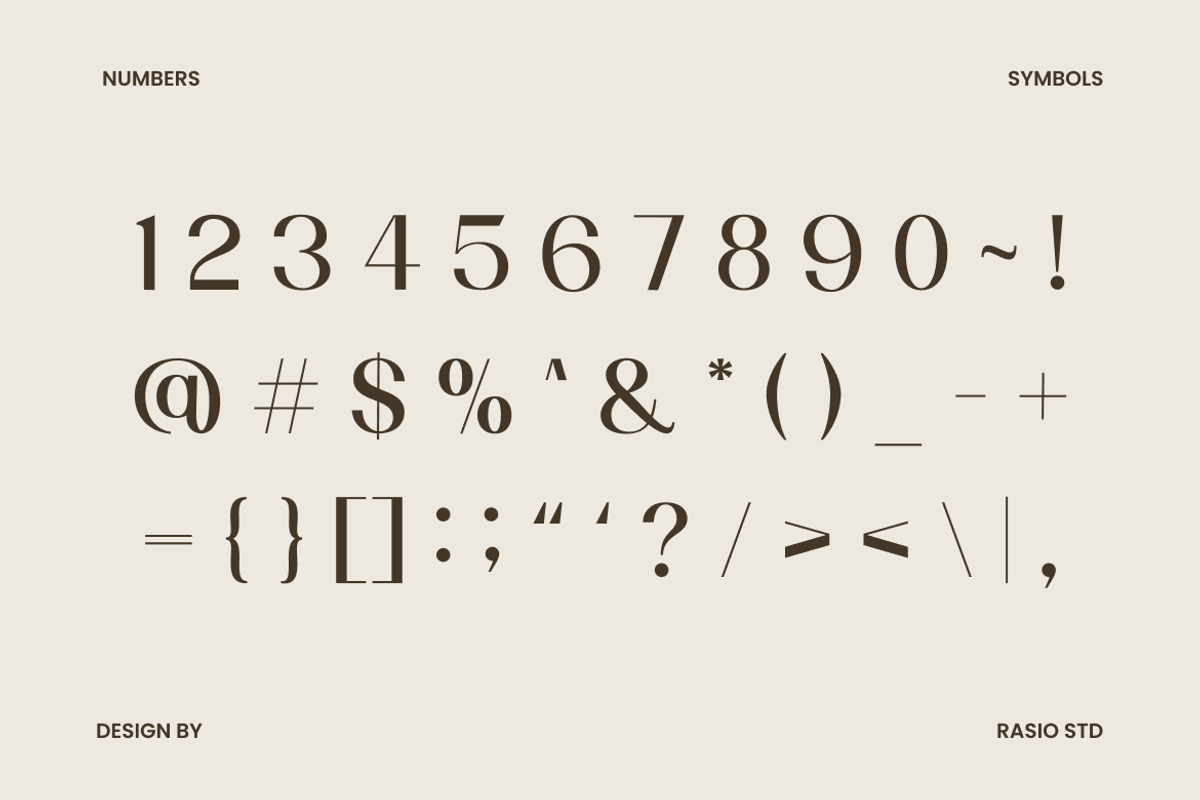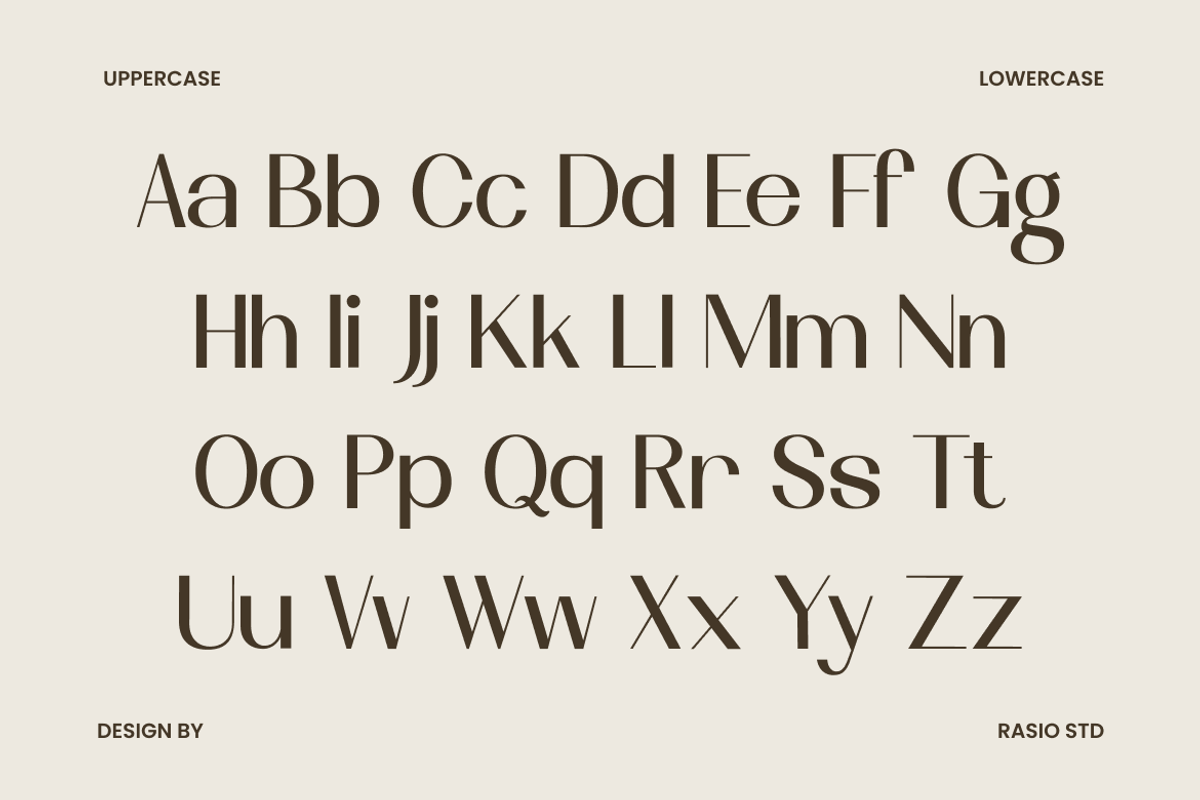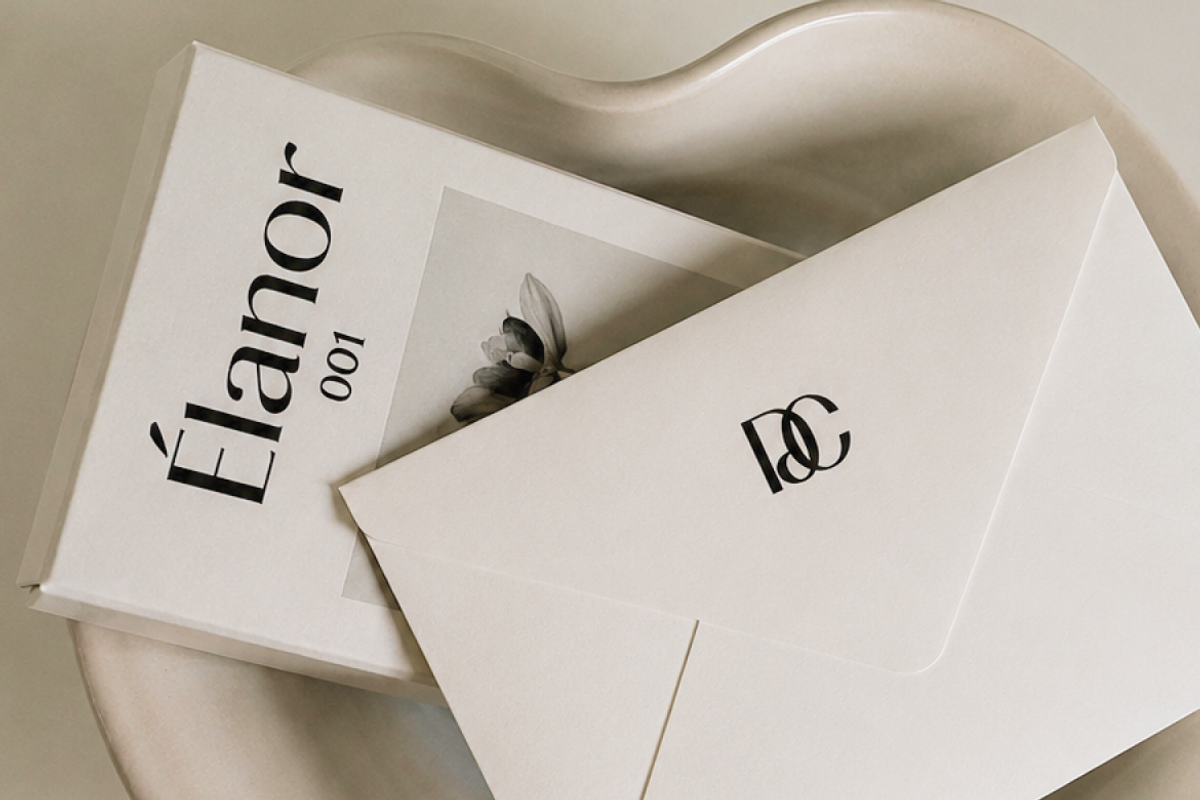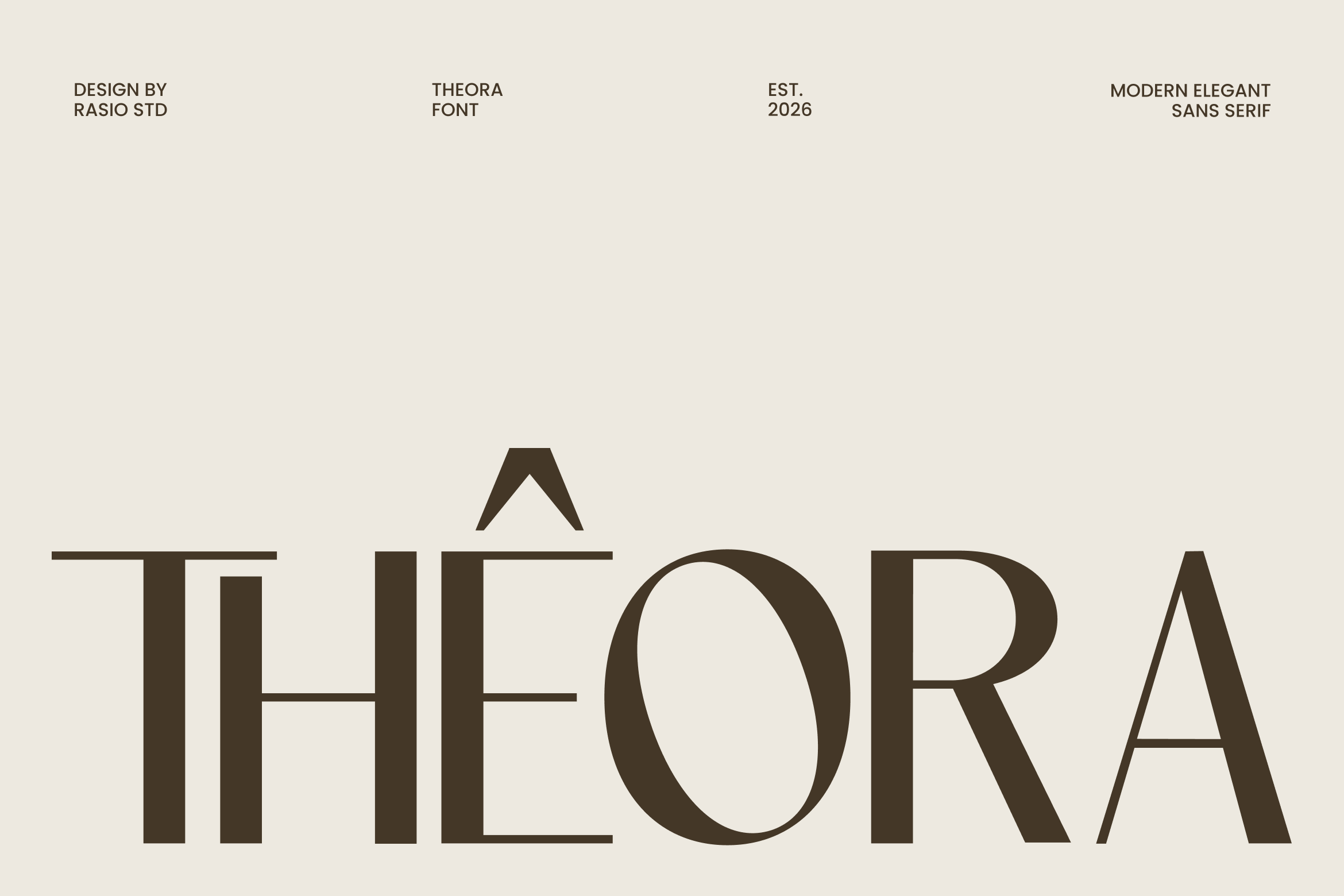
Theora Modern Elegant Sans Font
Theora Modern Elegant Sans Font is a refined contemporary typeface that combines geometric precision with graceful elegance. Distinguished by clean high-contrast construction, elongated proportions, and delicately balanced letterforms, it creates a sophisticated visual rhythm that feels modern, luxurious, and effortlessly timeless. Its distinctive character details, subtle stroke variations, and generous spacing produce typography with exceptional clarity while preserving a unique editorial personality suited for premium creative work.
Designed to deliver refined typography across a wide range of professional applications, Theora brings confidence and sophistication to branding, editorial, and commercial design. The font includes uppercase and lowercase characters, numerals, punctuation, offering the flexibility required for modern visual communication. Whether applied to luxury logos, fashion branding, magazine headlines, corporate identities, premium packaging, website interfaces, product presentations, or digital campaigns, its balanced proportions and elegant construction create memorable typography with outstanding readability across both print and screen environments.
Contemporary sans serif construction with refined geometric proportions
Elegant high-contrast strokes that create a distinctive editorial presence
Sharp yet graceful terminals for a clean and sophisticated appearance
Balanced letterforms with subtle modern details for premium visual impact
Carefully crafted spacing for exceptional readability in headlines, branding
Premium brand identities for fashion, beauty, hospitality, and luxury lifestyle businesses
Editorial magazines, lookbooks, and contemporary book cover designs
Logo design, luxury packaging, and sophisticated product label systems
Wedding stationery, invitations, and upscale event branding materials
Social media campaigns, advertising, and creative marketing assets
Screen-optimized kerning for responsive web design
Supports numerals, punctuation, and extensive symbol set
Let Theora elevate your typography with graceful proportions